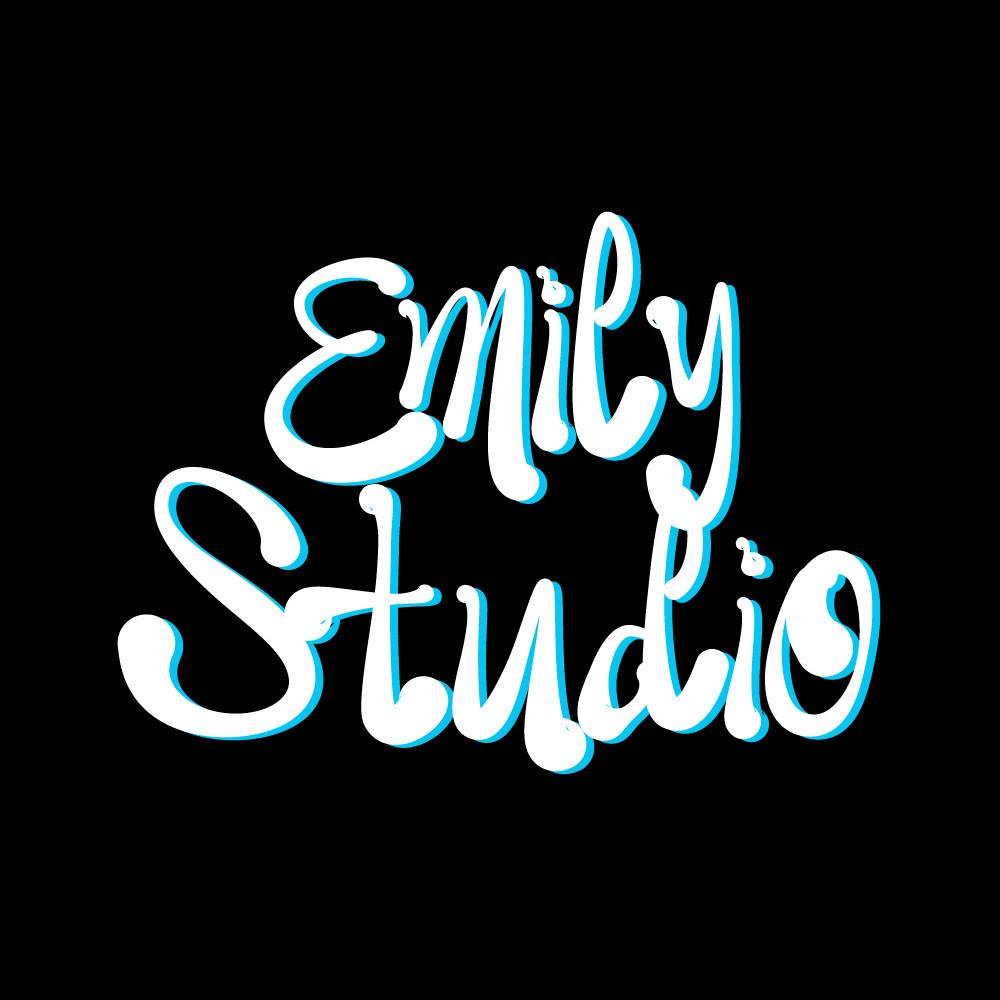
Maurelitta Font Description
Maurelitta is a beautiful and elegant script font. Fall in love with its authentic feel and use it to create beautiful wedding invitations, quote notes, beautiful stationary art, engaging social media posts and cute greeting cards. This font is PUA encoded which means you can access all glyphs and swashes with ease!